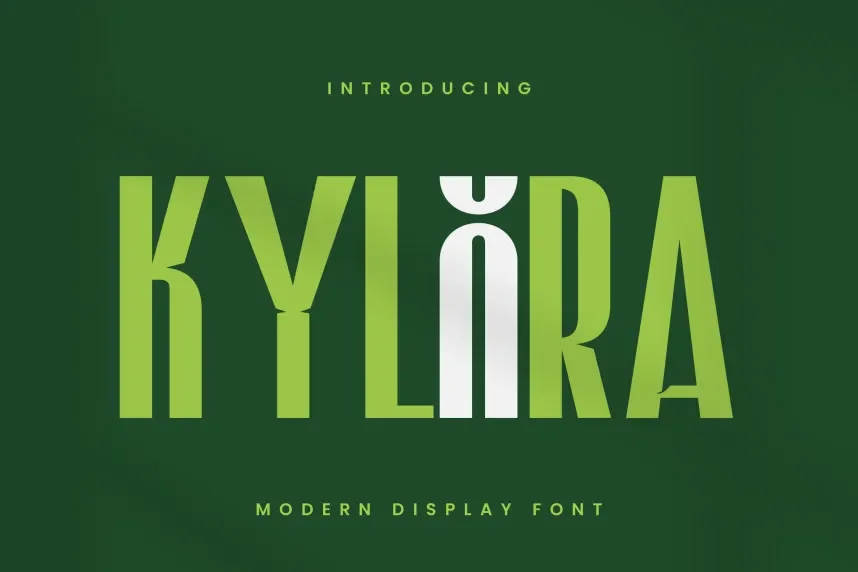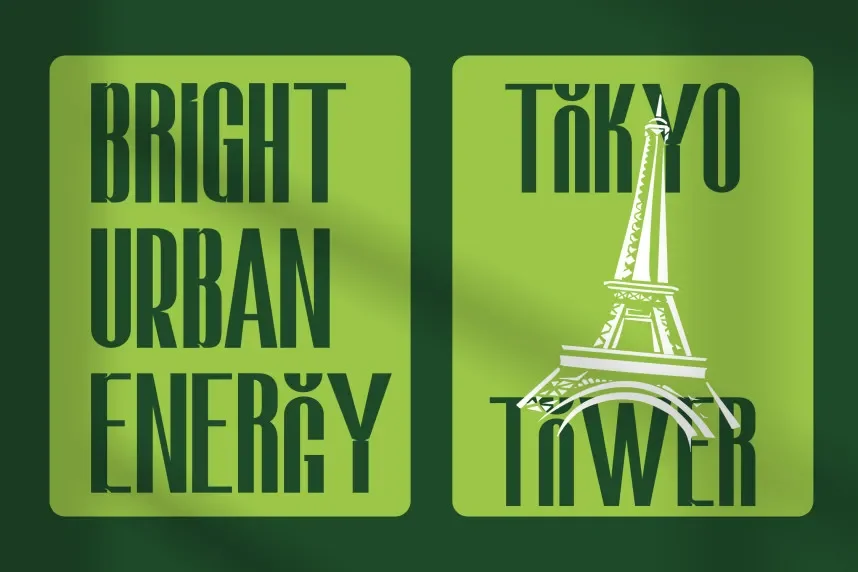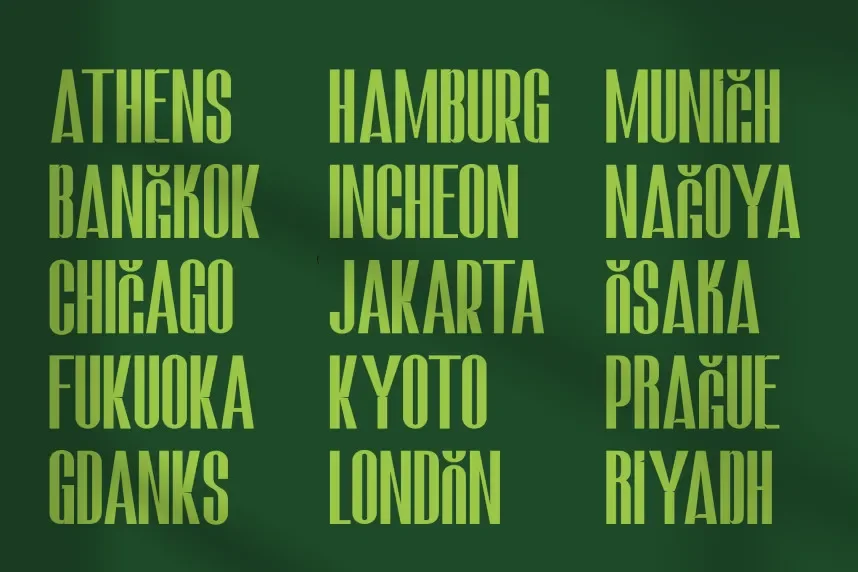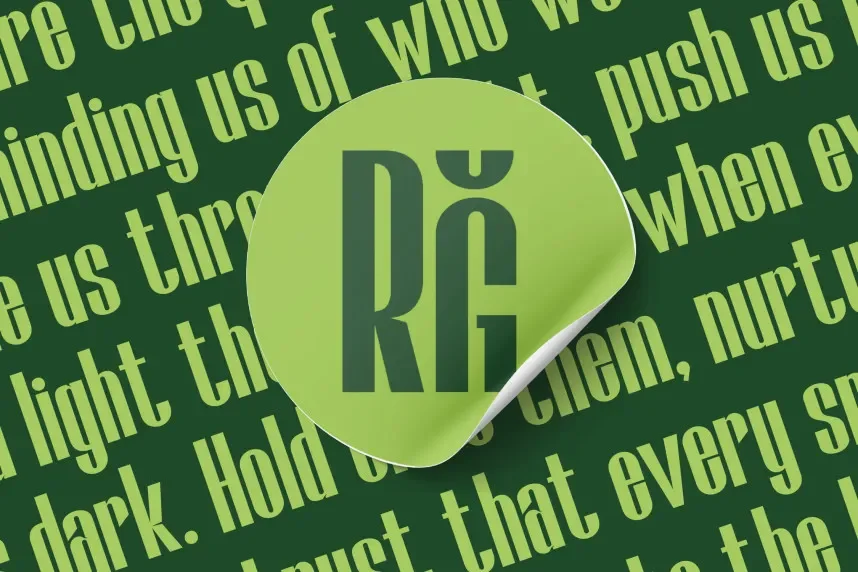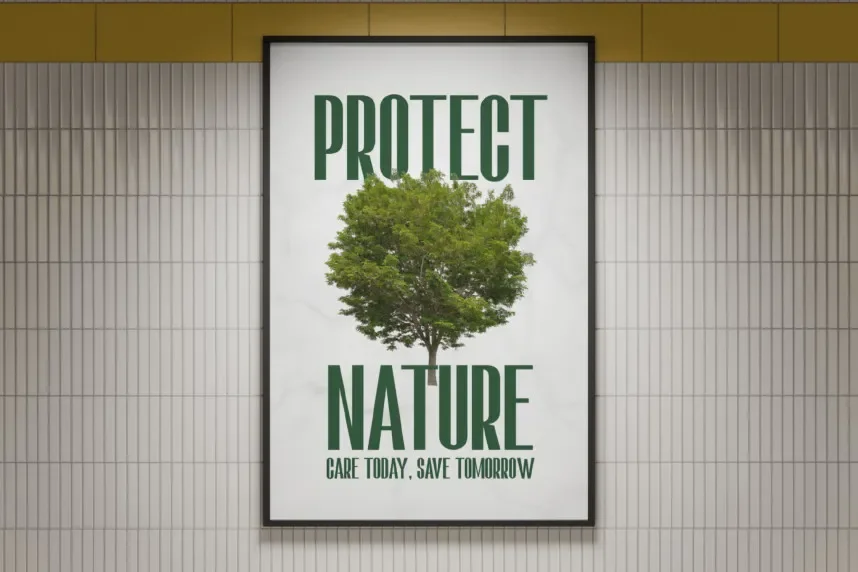
Kylora Font is a serif typeface designed to improve readability while maintaining a professional and elegant appearance. It addresses common design challenges in branding, wedding invitations, and editorial layouts, providing consistent letterforms suitable for both print and digital applications. Its clear structure supports brand recognition and ensures text remains legible across varying sizes.
Kylora features moderate stroke contrast, sharp terminals, and balanced proportions, creating a formal yet approachable visual impression. The typeface includes standard ligatures and supports multilingual characters. Its serif structure enhances readability in long paragraphs and works well for headers and body text alike. Designers can rely on Kylora for clean, cohesive typography across web design, UI elements, and printed stationery.